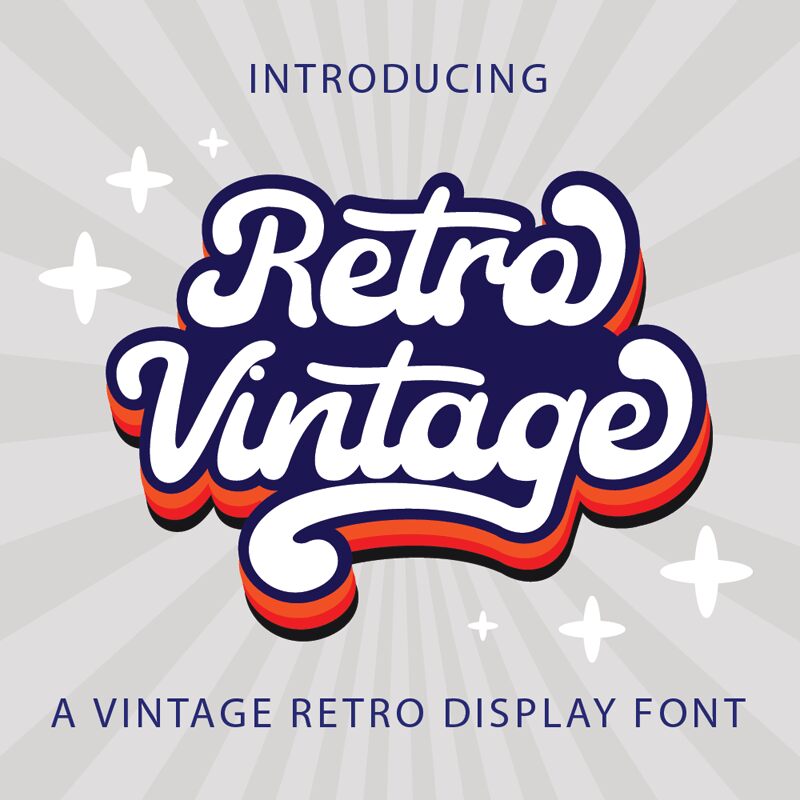
Retro Vintage typeface
Retro Vintage
Retro Vintage is a stylish, vintage-inspired handwritten font that adds a unique retro touch to any design project. Whether you’re creating logos, branding materials, invitations, stationery, wedding designs, or social media posts, this font is a perfect choice.